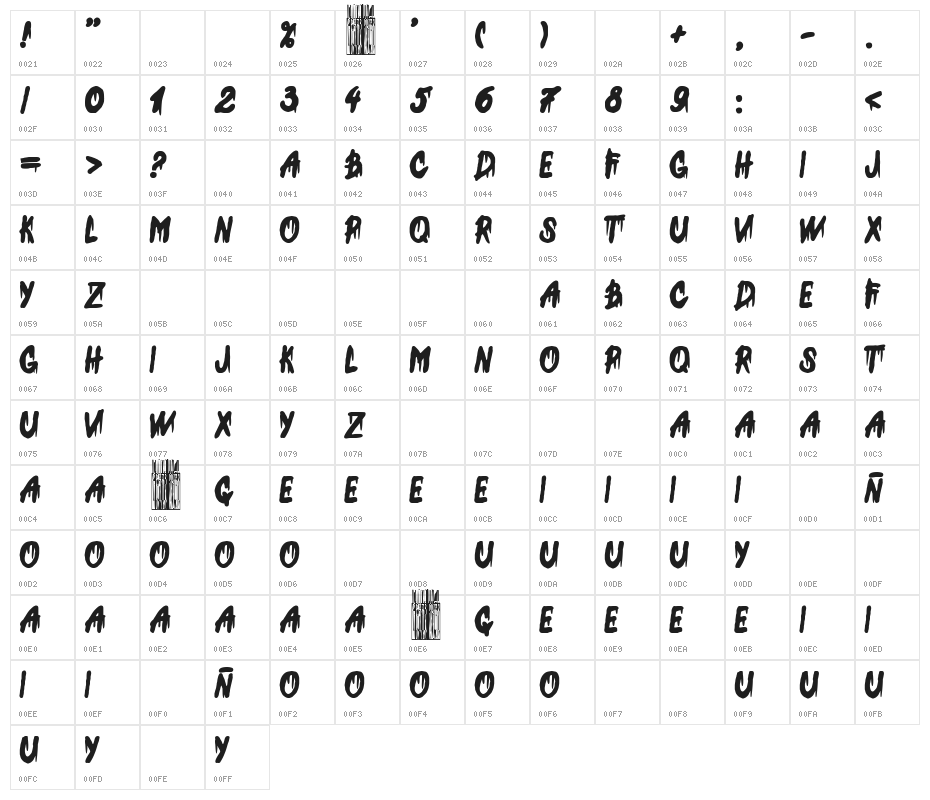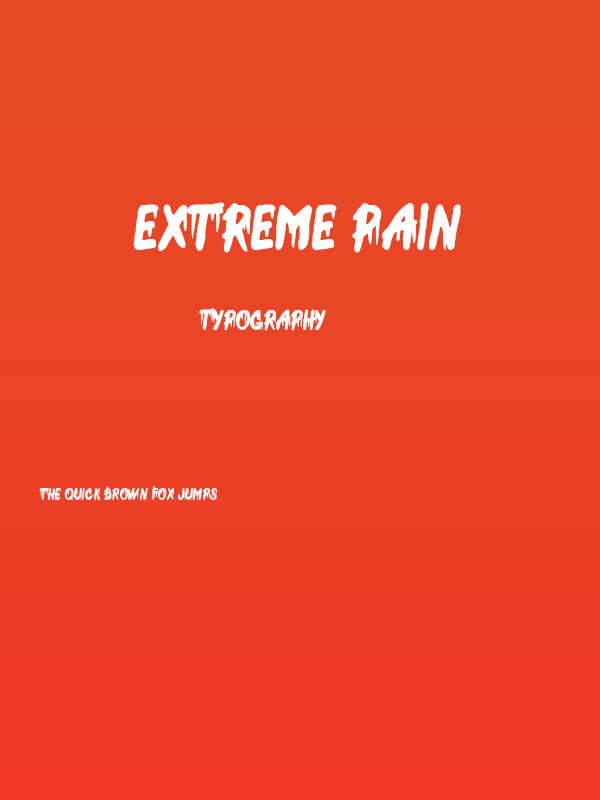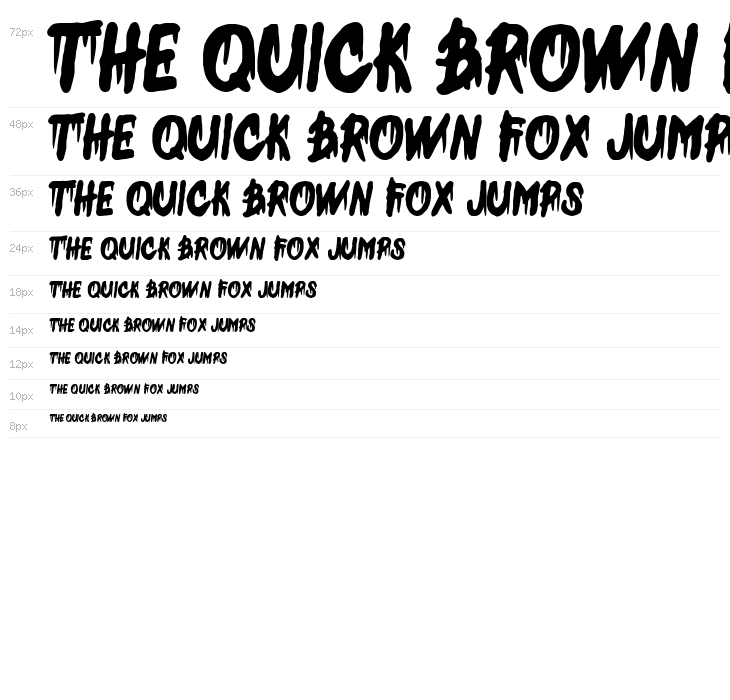
Extreme Pain Font
Extreme Pain Description
A bold, decorative display font with a dripping, horror-inspired style. The characters appear as if melting or oozing, with irregular edges and exaggerated forms, creating a sense of unease and intensity.
| Overall Style | Decorative, Horror, Grunge |
| Use Case | Headlines, Posters, Logos, Event Titles |
| Proposed Projects | Halloween posters, horror movie titles, haunted house flyers, themed party invitations, graphic novels, and spooky event branding. |